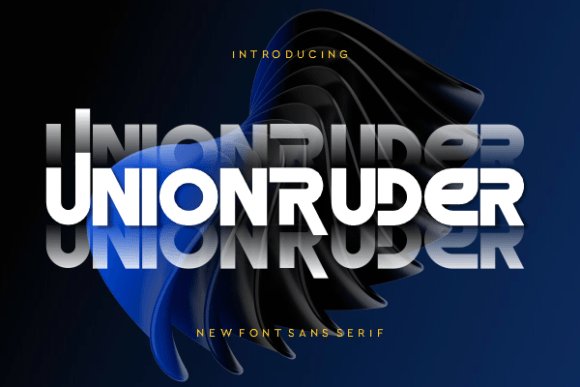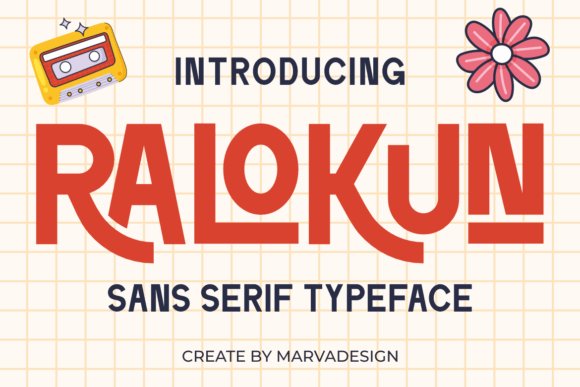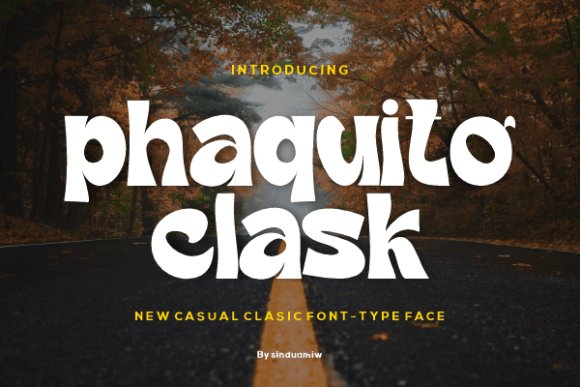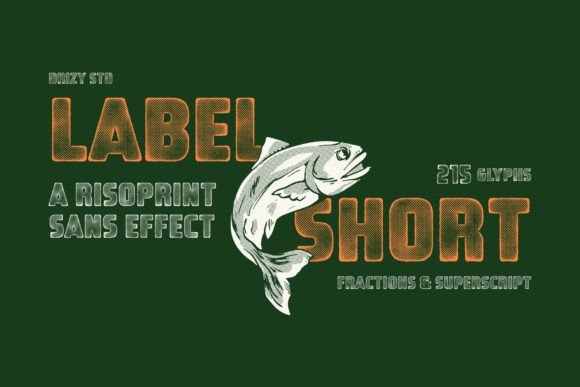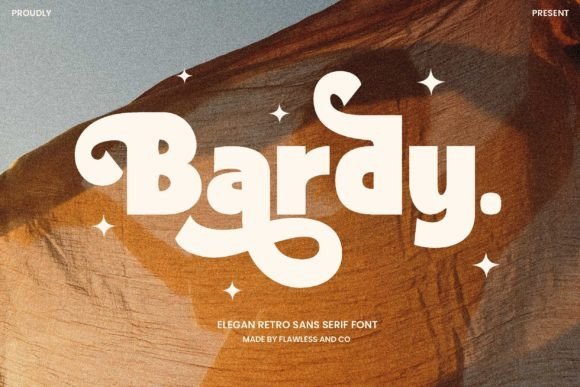
45 Must-Have Sans Serif Fonts for Modern Typography in 2026
Finding the right typography can make or break your design projects, especially as minimalist aesthetics continue to dominate in 2026. If you are looking to refresh your toolkit, you are in the right place. We have put together a massive list of 45 incredible Sans Serif Fonts that will give your branding, web design, and print materials a clean, modern edge. These versatile typefaces offer exceptional readability and geometric precision, proving that sometimes less really is more when it comes to effective communication.
1. Lignée Font
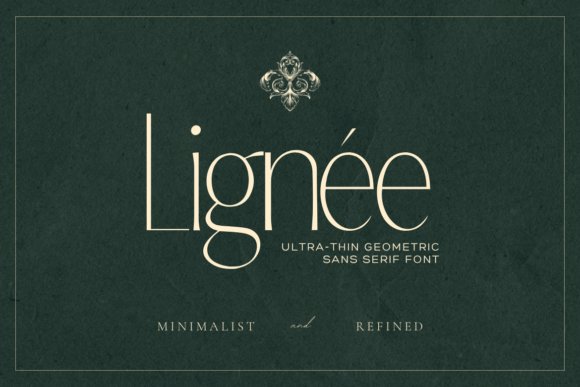
Introducing Lignée Font, the ultimate embodiment of ultra-thin, luxury sans serif fonts. Meticulously engineered for designers who want to infuse their projects with profound intention and unyielding elegance, this typeface is a breath of fresh air in modern typography. Drawing its core inspiration from classic editorial layouts, high-end fashion branding, and the precise lines of modern architecture, Lignée strikes a flawless balance. It echoes the stark beauty of geometric perfection while surprisingly retaining an organic, hand-drawn essence that keeps it from feeling cold or sterile. When you need clean letterforms that command attention through subtlety rather than heavy weight, this typeface delivers unparalleled sophistication.
In practical application, Lignée is an absolute powerhouse for high-end visual identities, boutique packaging, and minimalist editorial spreads. Because of its ultra-thin weight, it thrives in large display headers where its delicate structure can be fully appreciated, yet it maintains striking digital legibility in sparse, well-kerned subheadings. Designers looking to elevate a lifestyle brand, a gallery exhibition catalogue, or an artisanal cosmetics line will find that it pairs beautifully with high-contrast serifs or acts as a stunning standalone typographic centerpiece. If you are exploring the versatile world of sans serif fonts for a project that demands quiet luxury, Lignée is a quintessential choice that radiates premium quality.
2. Ut Moringans Font
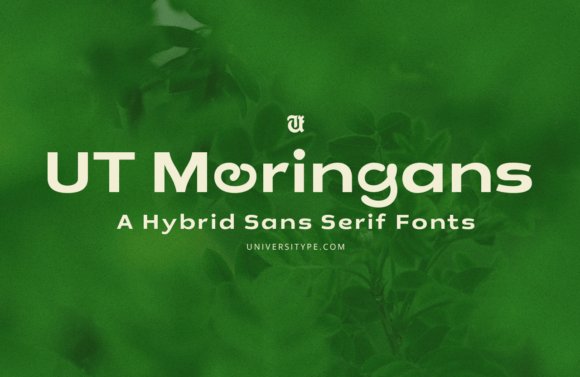
The UT Moringans Font is a brilliant typographic manifestation of the remarkable moringa leaf, translating botanical elegance into highly functional design. Often celebrated as the “miracle tree,” the moringa signifies growth, sustainability, and wellbeing—ethereal elements that are woven delicately into every curve and outline of this typeface. What sets UT Moringans apart in the expansive landscape of sans serif fonts is its hybrid design philosophy. It encapsulates a harmonious blend of standard geometric sans serif structure and the fluid, organic forms found in nature. This unique marriage allows the font to radiate a feeling of freshness, familiarity, and warmth, breaking away from the rigid conformity often seen in minimal design.
Beyond its conceptual beauty, UT Moringans is equipped with a robust set of features that make it incredibly versatile for both professional and playful applications. It includes a delightful set of hand-drawn alternate styles and stylistic variations, giving designers the flexibility to add a custom, fun twist to their typographic hierarchy. Despite these decorative organic undertones, the font never sacrifices readability, making it equally adept at anchoring body text or headlining a major campaign. Furnished with exhaustive punctuation, currency symbols, and fractions, it is exceptionally well-suited for eco-conscious branding, sustainable packaging, and wellness editorial platforms. For brands wanting to project an approachable yet modern aesthetic through premium sans serif fonts, UT Moringans offers an effortless synergy between natural tranquility and digital utility.
3. Delphin Font
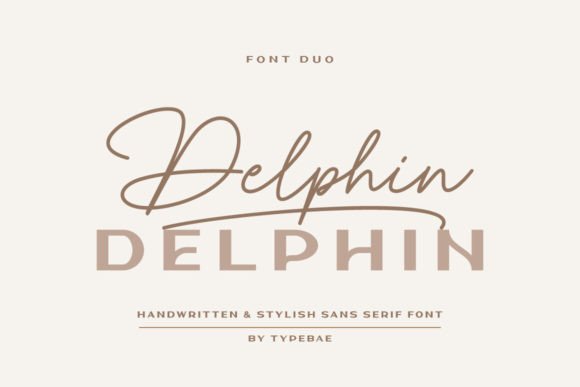
Delphin Font offers a unique two-for-one typographic experience, pairing a beautifully fluid handwritten script with a deeply stylish sans-serif companion. Designed specifically to contrast and complement each other, this duo brings an elegant beauty and contemporary style to any creative project. While the script introduces a romantic, personalized flair with its graceful swashes, the accompanying sans-serif provides the clean, stabilizing baseline necessary for modern typography. Exploring sans serif fonts that come with a built-in pairing removes the guesswork for designers, ensuring impeccable visual harmony right out of the box. The sans-serif element is sharp, highly legible, and versatile enough to ground the flourishes of the script without competing for the viewer’s attention.
4. Rise of Beauty Duo Font
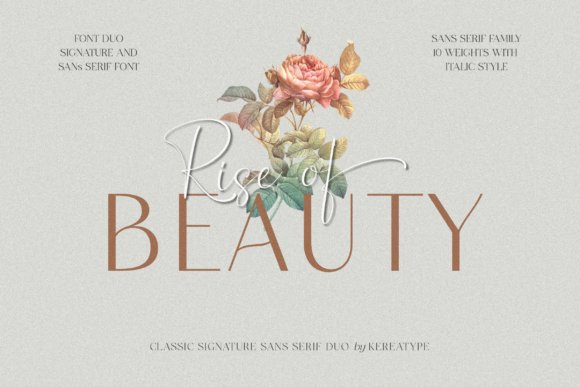
Introducing the Rise of Beauty Duo Font, a masterfully curated pairing that seamlessly combines a stylishly expressive script with incredibly clean sans serif fonts. This contemporary typographic solution effortlessly bridges the gap between classic elegance and modern readability. By providing an organic, flowing script alongside a structured sans serif companion, this duo ensures your creative work maintains a beautiful typographic harmony without sacrificing legibility or aesthetic appeal.
This versatile typeface package is an absolute must-have for designers looking to elevate their visual storytelling. It is perfectly suited for a diverse range of demanding design projects, including sophisticated logos, high-end corporate branding, and romantic wedding designs. Furthermore, the crisp nature of the included sans serif characters makes it highly effective for digital applications like social media posts, modern website headers, and striking product advertisements. Whether used in print or on screen, this duo delivers an undeniable touch of class.
5. Geometrica Font
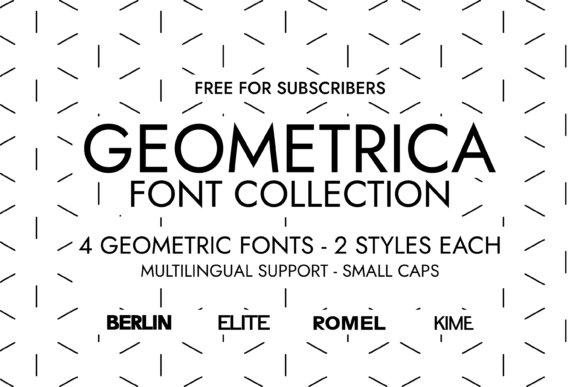
Discover the Geometrica Font Collection, a premium typographic suite that serves as a masterclass in modern typography. Heavily inspired by the timeless principles of iconic Swiss design, this set features four beautifully minimalist sans serif fonts: KIME, ROMEL, BERLIN, and ELITE. Crafted with absolute precision for modern creatives, each typeface is available in both Regular and Italic styles. They embody a pristine, grotesque aesthetic that champions exceptional legibility, perfect visual balance, and timeless simplicity.
Choosing the right typeface is essential for creating impactful designs that resonate with your audience. We hope this extensive collection of minimalist typefaces gives you plenty of inspiration for your upcoming projects in 2026 and beyond. Bookmark this list next time you need a crisp, highly readable font family to complete your creative vision.